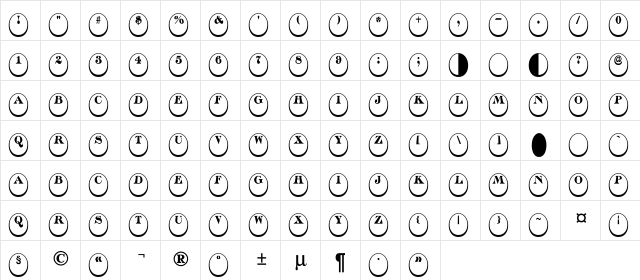
a_DiscoSerifDn3DNr Regular
Design Context for a_DiscoSerifDn3DNr Typeface
a_DiscoSerifDn3DNr carries the refined structure of traditional serif typography, with bracketed terminals and considered proportions that communicate credibility and craft.
Pro Tip: Set a_DiscoSerifDn3DNr with slightly loose tracking in headlines to let each letterform's detail read clearly at display sizes.